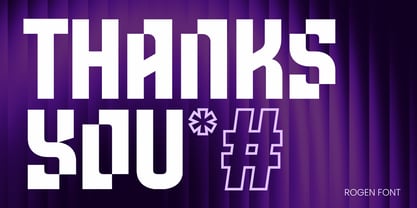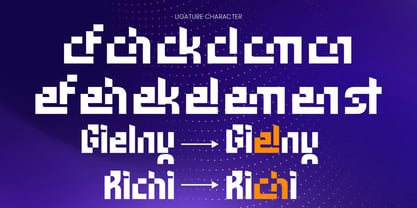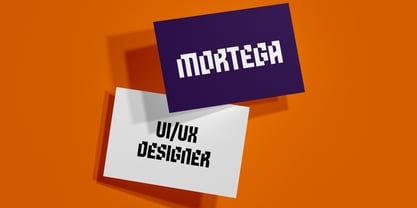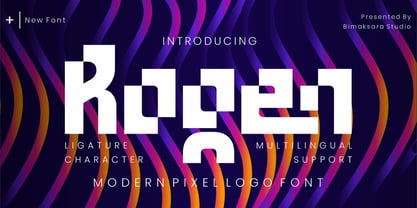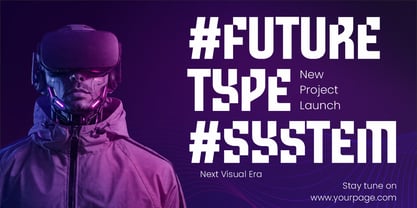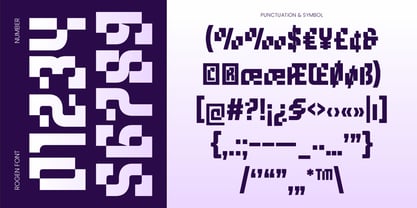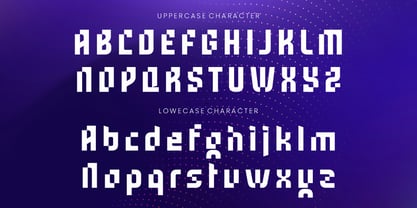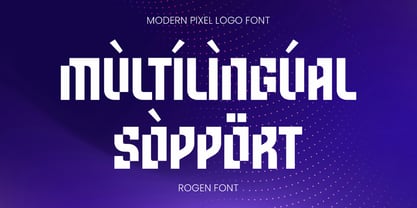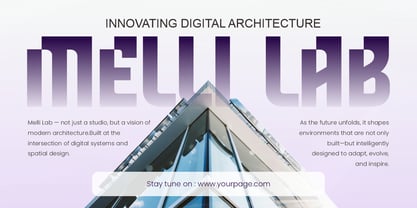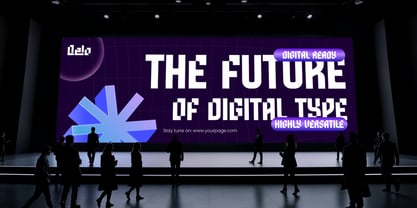
Rogen
Rogen - Modern Pixel Logo Font
Rogen A modern display typeface crafted to bring clarity, impact, and a futuristic edge to your design.
With its clean structure and distinctive letterforms, this typeface is designed for creators who want to build bold and visually striking compositions. It works seamlessly across digital interfaces, branding, posters, and creative layouts.
Whether you're designing for web, social media, or visual identity, this typeface delivers a strong presence while maintaining excellent readability.
Features:
• Uppercase & Lowercase
• Numbers & Punctuation
• Multilingual Support
• Ligatures
• OpenType features for enhanced typography control
Every character is designed with precision to ensure balance, readability, and a unique visual identity.
Perfect for:
• Branding & visual identity
• UI/UX & web design
• Posters & editorial layouts
• Social media graphics
Multilingual support for Afrikaans, Albanian, Asu, Basque, Bemba, Bena, Breton, Chiga, Cornish, Dutch, English, Estonian, Filipino, Finnish, Friulian, Galician, German, Gusii, Indonesian, Irish, Italian, Kabuverdianu, Kalenjin, Kinyarwanda, Luo, Luxembourgish, Luyia, Machame, Makhuwa-Meetto, Makonde, Malagasy, Manx, Morisyen, North Ndebele, Nyankole, Oromo, Portuguese, Quechua, Romansh, Rombo, Rundi, Rwa, Samburu, Sango, Sangu, Scottish Gaelic, Sena, Shambala, Shona, Soga, Somali, Spanish, Swahili, Swedish, Swiss, and more.